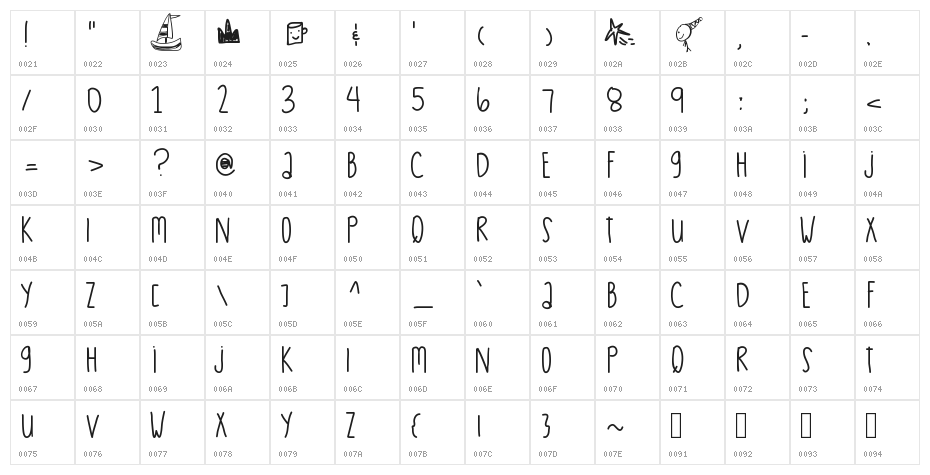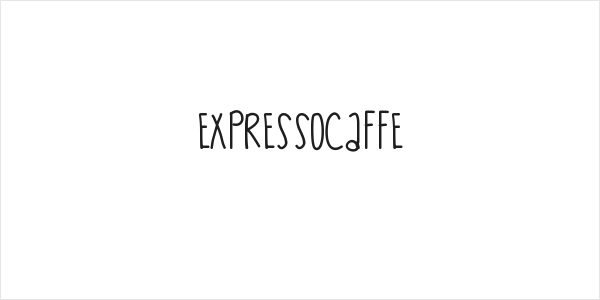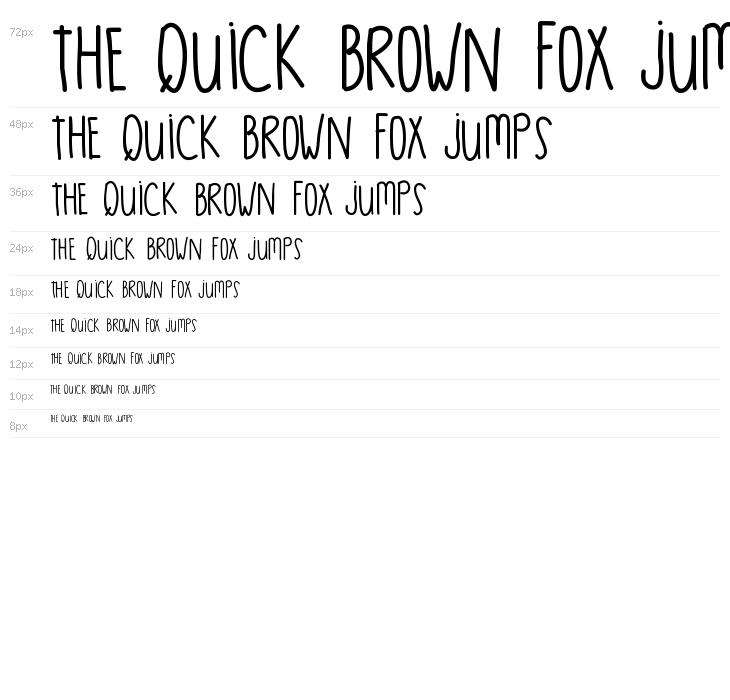
ExpressoCaffe Font
This font features a playful and casual handwritten style, characterized by its tall, narrow letters with rounded edges. The strokes are consistent in width, giving it a uniform appearance. The uppercase and lowercase letters maintain a cohesive look, with a slight slant that adds to its informal charm. The numerals are clear and legible, matching the overall style of the alphabet. Special characters are included, each designed with the same playful aesthetic. This font is ideal for projects that require a friendly and approachable feel.
| Width | Condensed |
| Overall Style | Casual |
| Use Case | Headlines, Logos, Informal Text |
| Proposed Projects | Great for greeting cards, children's books, casual branding, and social media graphics. |